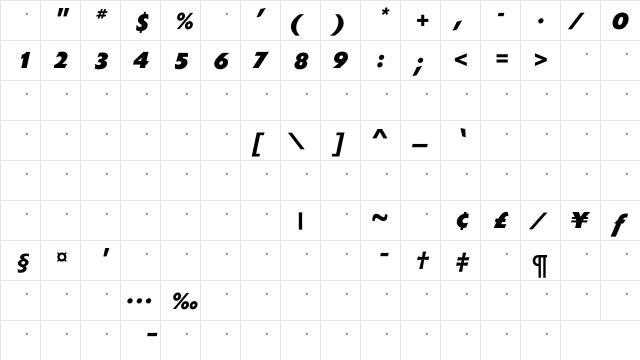
ExtensionExtraBoldItalicTab Regular Font Preview
ExtensionExtraBoldItalicTab Regular
Design Context for ExtensionExtraBoldItalicTab Typeface
ExtensionExtraBoldItalicTab offers clean, dependable letterforms without strong stylistic allegiance, making it a practical choice for designers who need flexibility. The slanted form adds forward momentum and visual energy. The heavy weight commands attention and anchors typographic hierarchies.